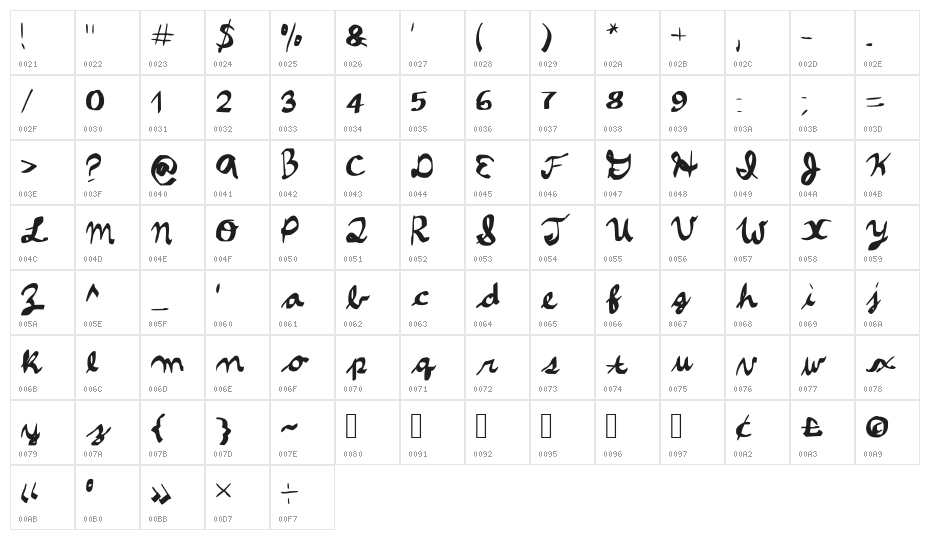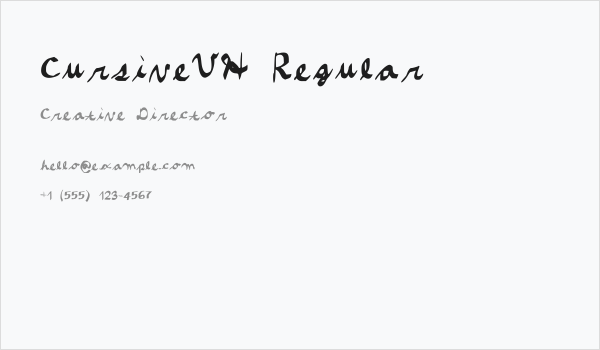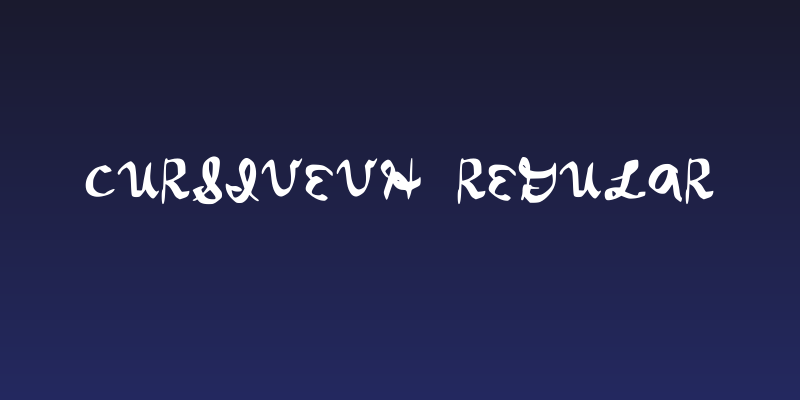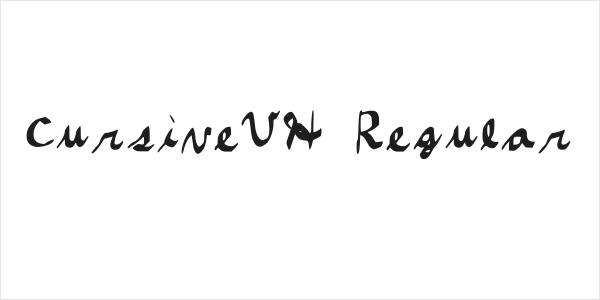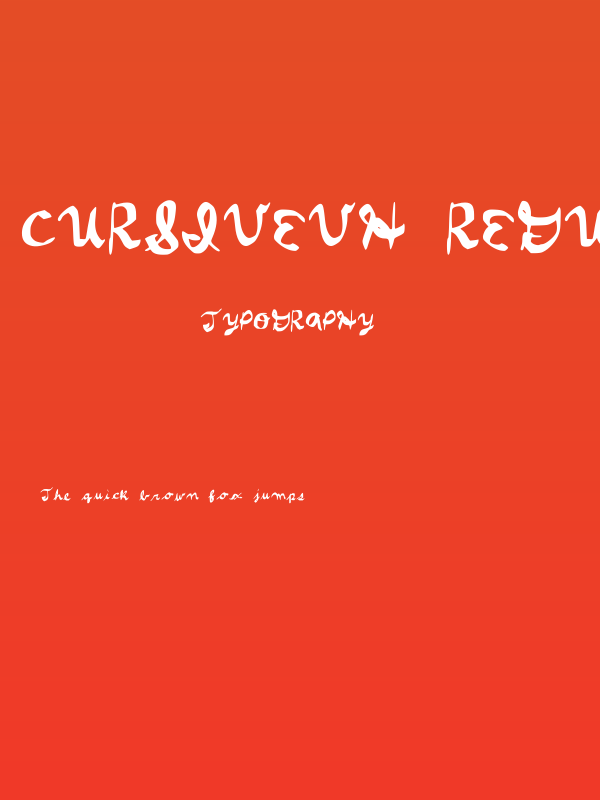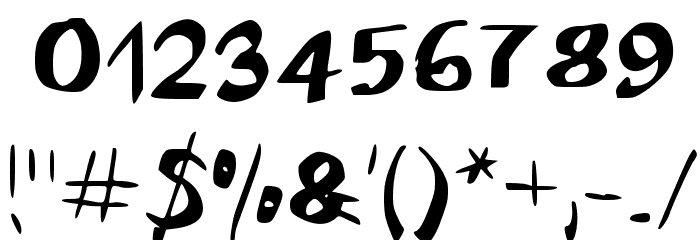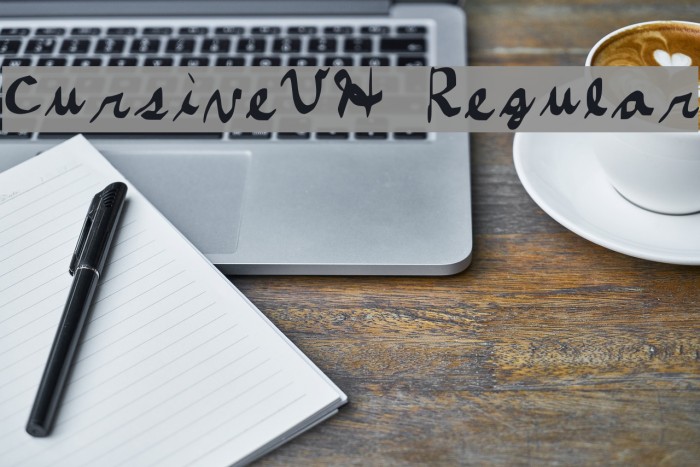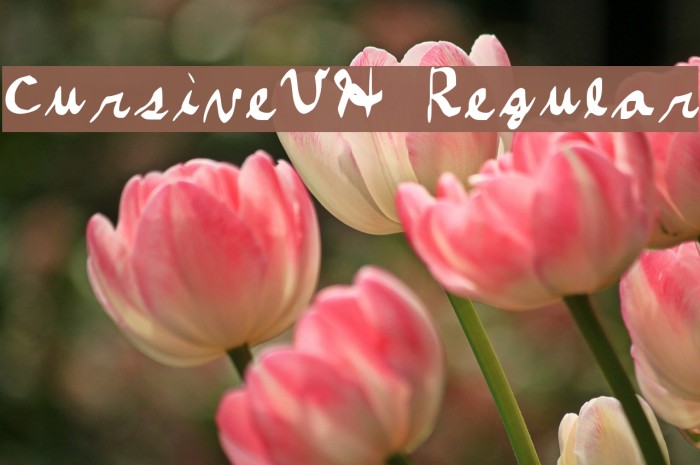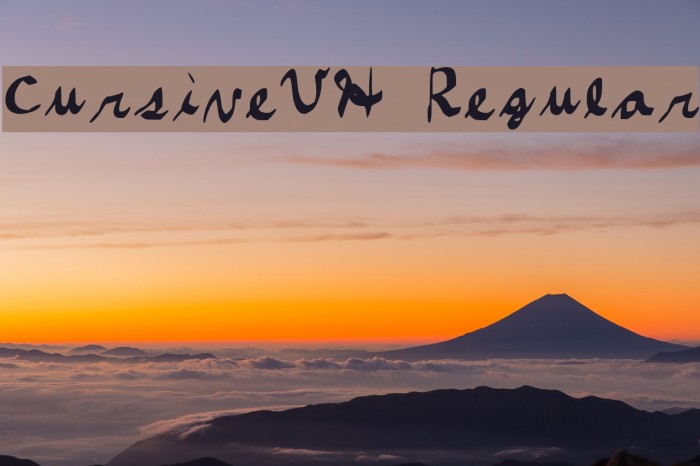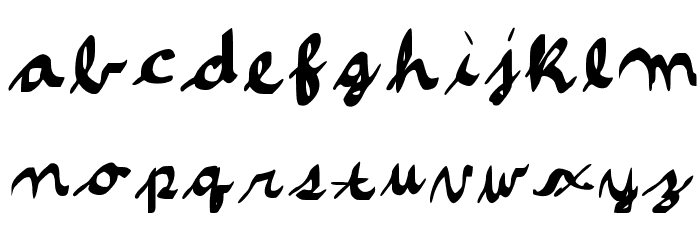
CursiveVH Regular Font
CursiveVH Regular Description
This font exhibits a bold and expressive cursive style, characterized by its fluid and dynamic strokes. The uppercase letters are notably larger and more elaborate, with sweeping curves and loops that give a sense of movement and elegance. The lowercase letters maintain a consistent flow, connecting smoothly in a way that mimics natural handwriting. Numbers and special characters are crafted with the same attention to detail, ensuring a cohesive appearance across all glyphs. The font's overall look is both artistic and legible, making it suitable for creative projects that require a personal touch.
| Proposed Projects | Ideal for invitations, greeting cards, branding, and artistic projects requiring a personal touch. |